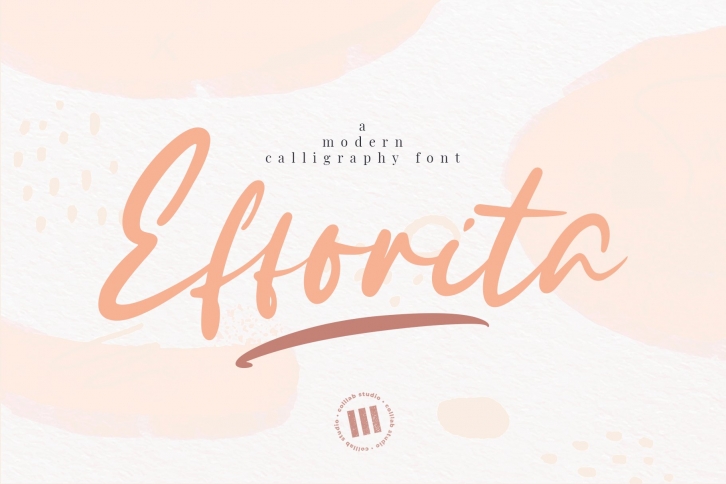
Efforita is a gorgeous font that was realeased on October 9, 2020. The font can be used in many style contexts and design environments. Perfect for invitations, magazines, websites, logos, and more! It was designed by colllab studio and the file size is 2.77 MB. Thanks for checking out this font!